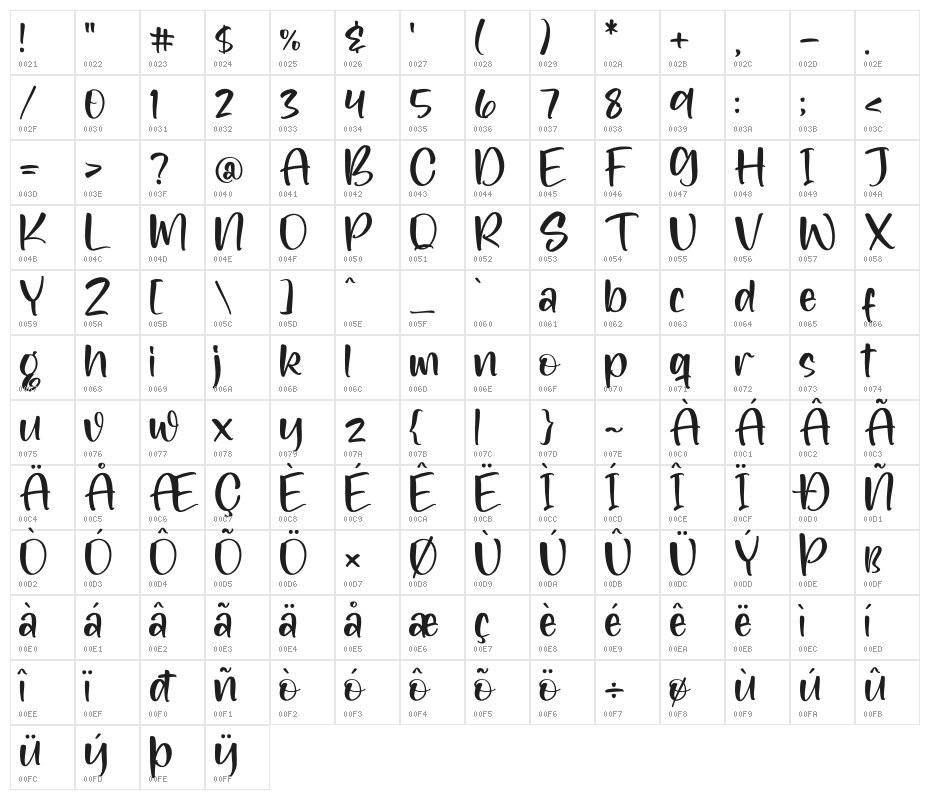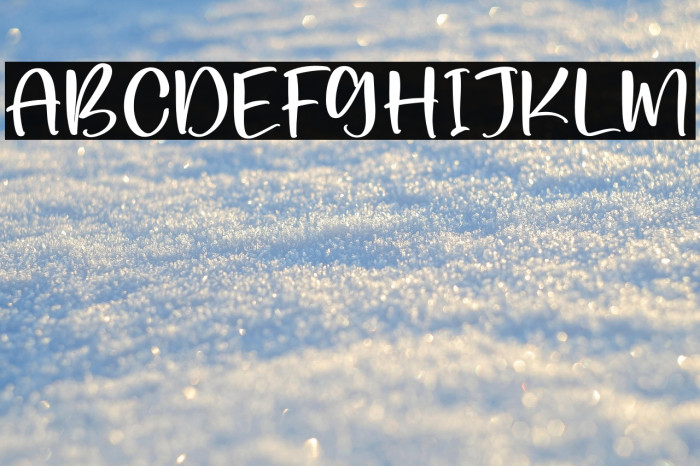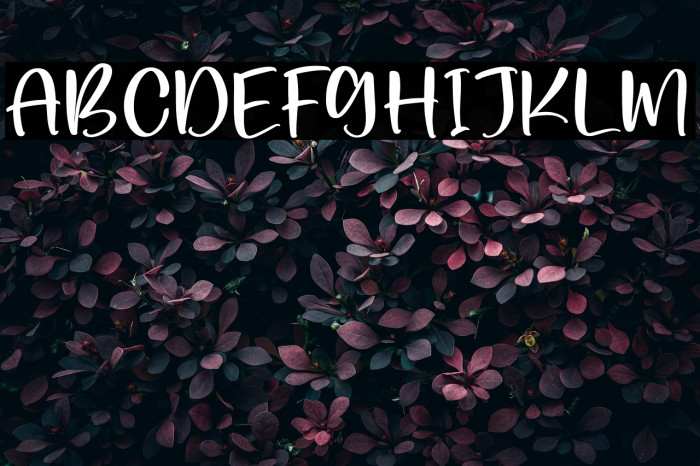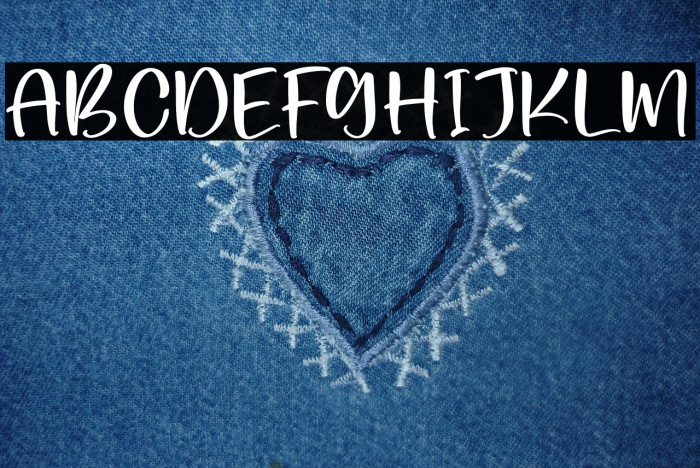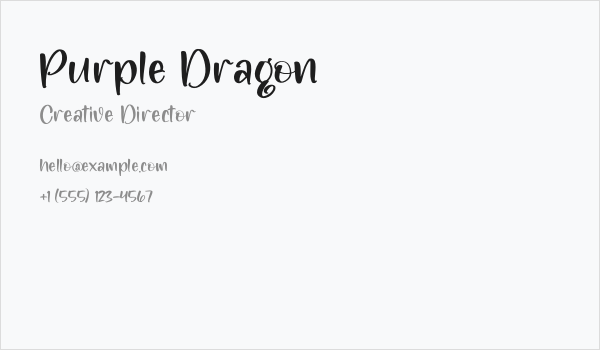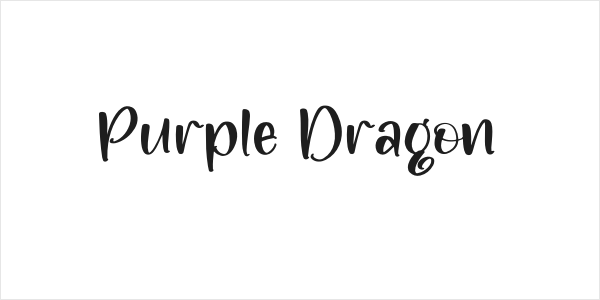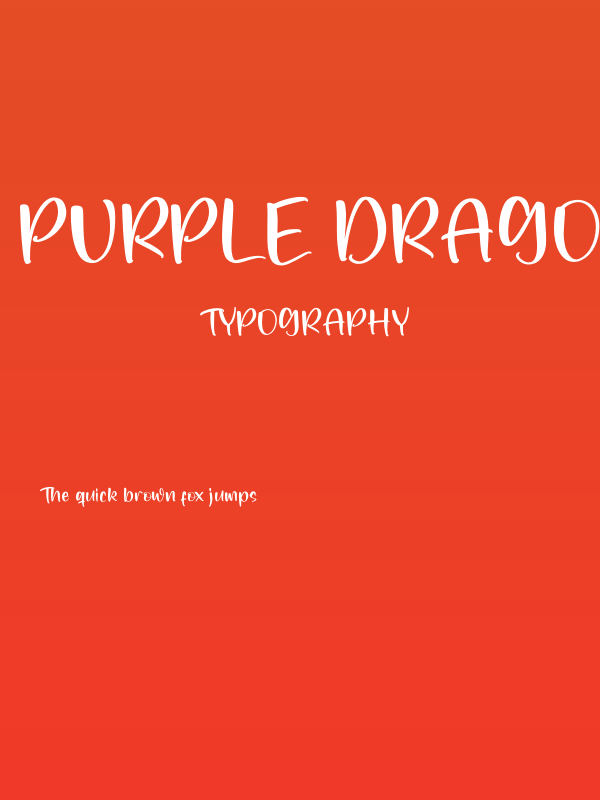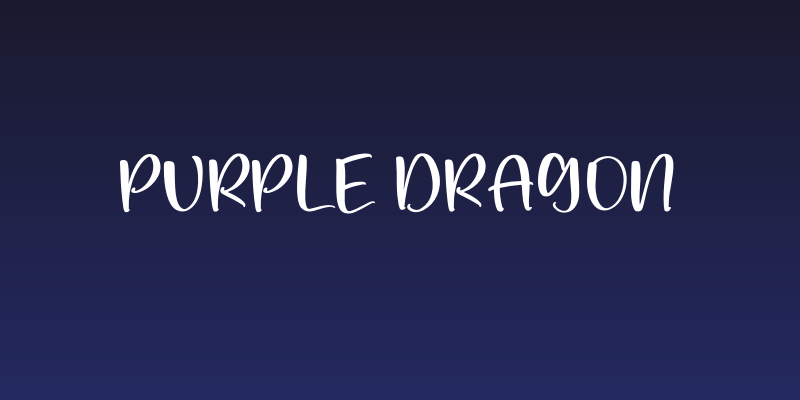
Purple Dragon Font
Purple Dragon Description
This font features a bold and expressive handwritten style with a playful and energetic flair. The letters are characterized by their smooth, flowing curves and varying stroke thickness, giving it a dynamic and lively appearance. The uppercase and lowercase letters maintain a consistent style, with some letters featuring unique, whimsical elements that add to its charm. The numbers and special characters are equally bold and maintain the same playful aesthetic, making this font versatile for various creative applications.
| Proposed Projects | Ideal for greeting cards, playful branding, children's books, and creative social media graphics. |